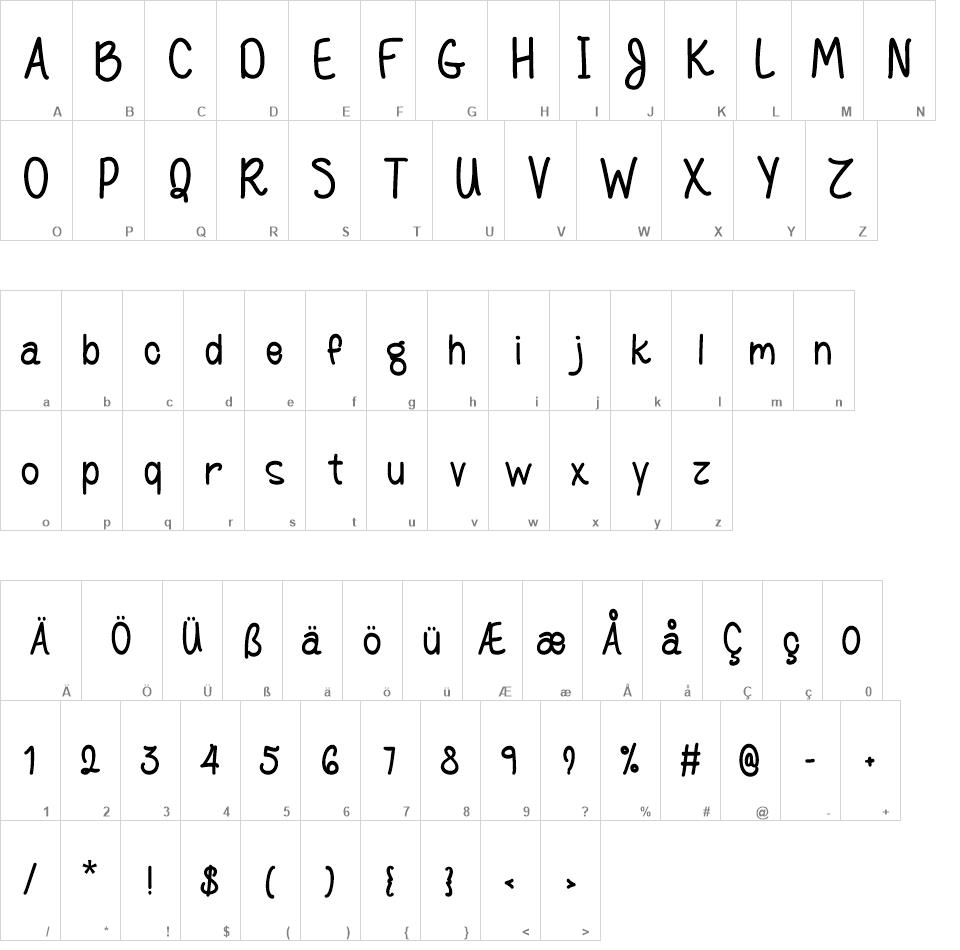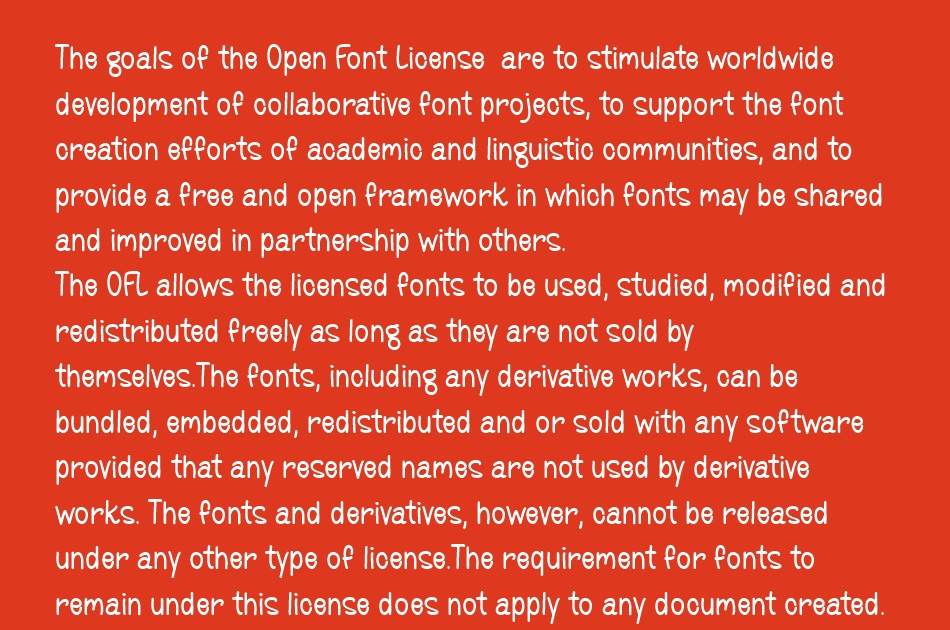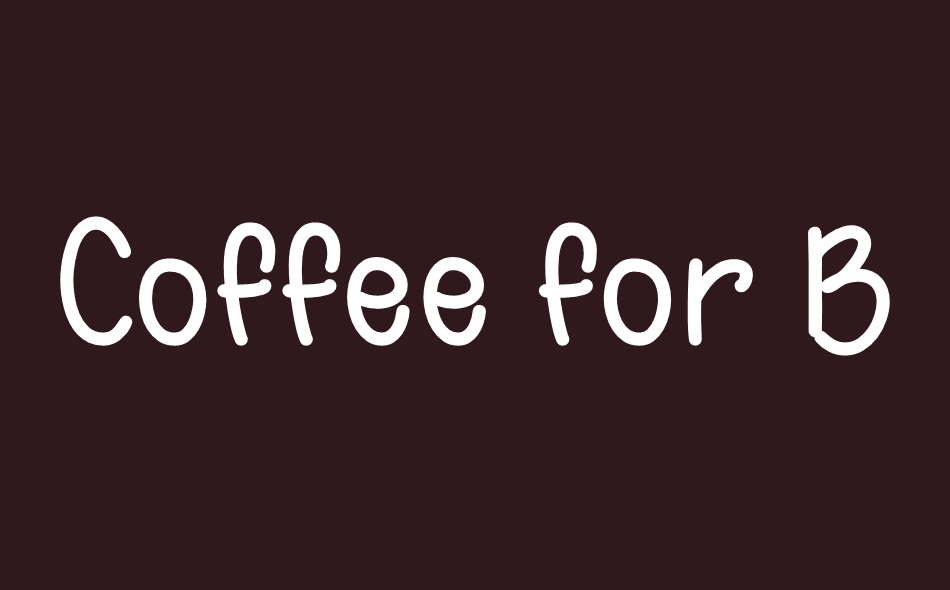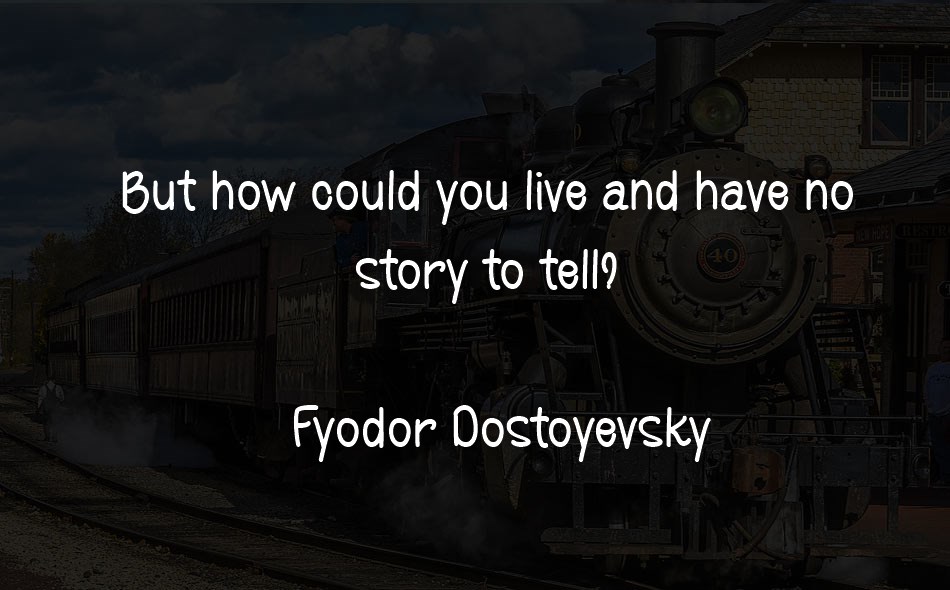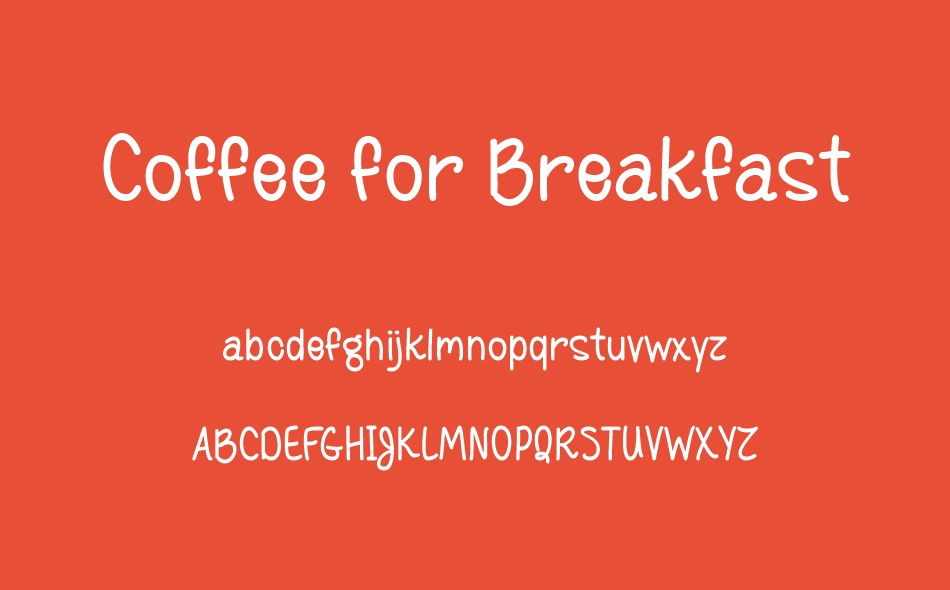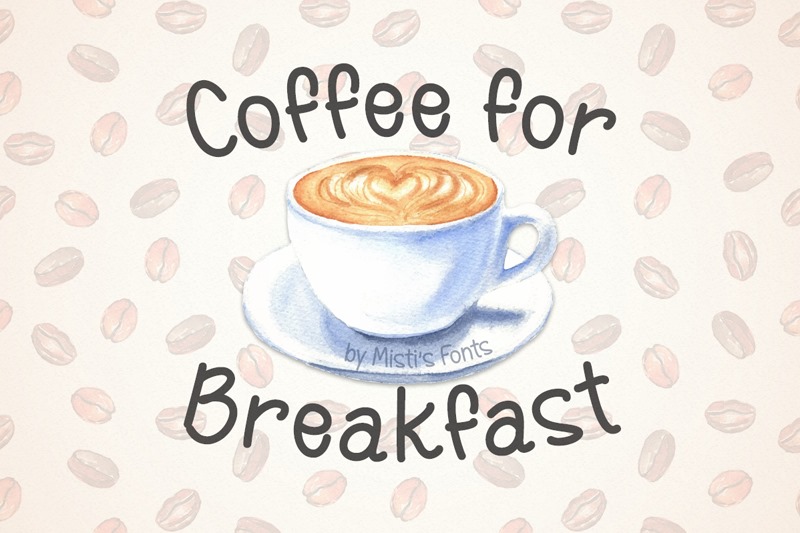
Coffee for Breakfast font
Coffee for Breakfast is a cute handwritten typeface. It will look great on blog post graphics, shop logos, and product labels. Its whimsical style makes it ideal for creating greeting cards and personalized items, as well as cartoons or comic-themed projects. Terms Of Use and Commercial Licensing:https://mistifonts.com/coffee-for-breakfast/